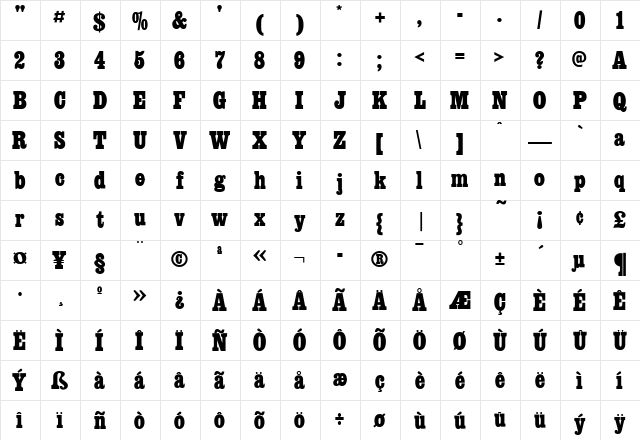
AIEgyptianCondensed Bold Font Preview
| Style | Condensed Bold |
| Foundry | Copr. Alphabets Inc |
Design Context for AIEgyptianCondensed Typeface
AIEgyptianCondensed features prominent, blocky serifs that give it a confident, grounded presence — equally at home in editorial settings and bold branding work. The heavy weight commands attention and anchors typographic hierarchies. Its narrow stance lets it pack a punch even in space-constrained designs.
Works well in editorial design, news publishing, impactful branding, and poster typography.
Pro Tip: Try AIEgyptianCondensed set tight in headlines for a classic editorial feel. Its slab serifs create strong horizontal rhythm that anchors a page layout.